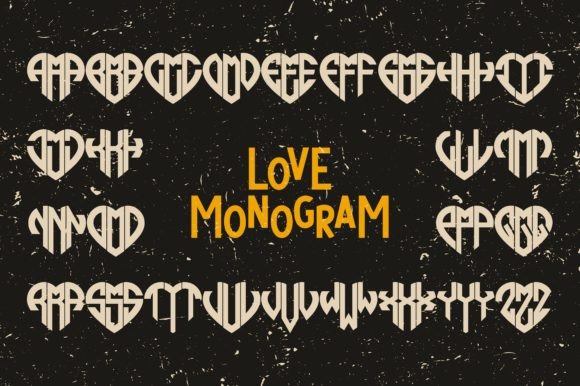
Love Monogram Font
Love Monogram is a unique and charming display font. Its style and distinctive way of writing three-word calligraphy will bring the best to any project idea. This font is PUA encoded which means you can access all of the amazing glyphs and ligatures with ease.